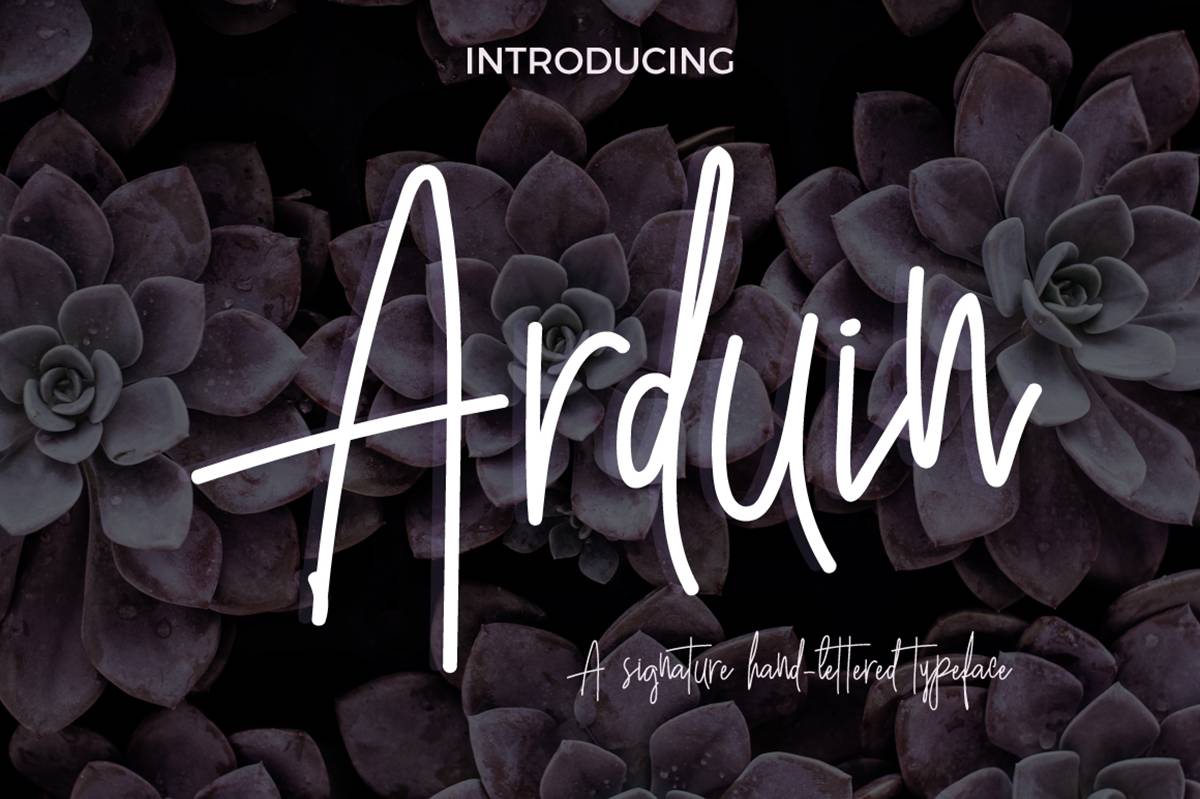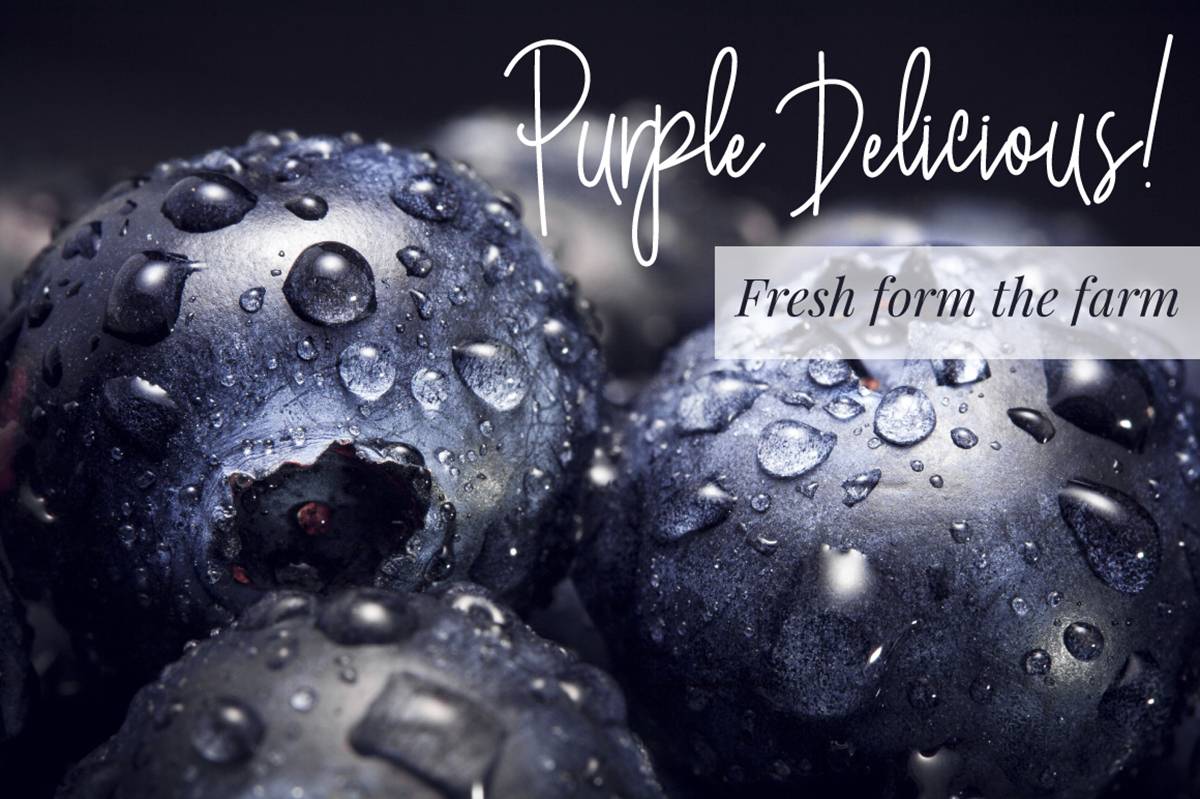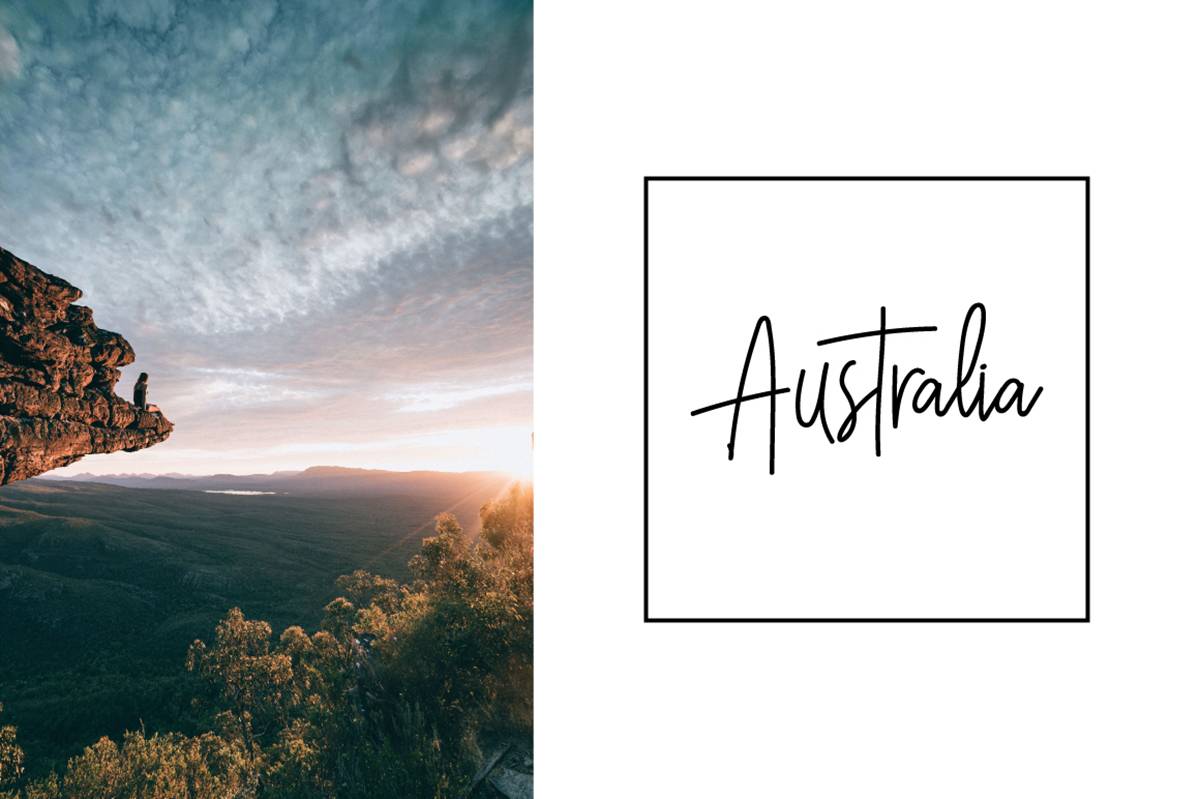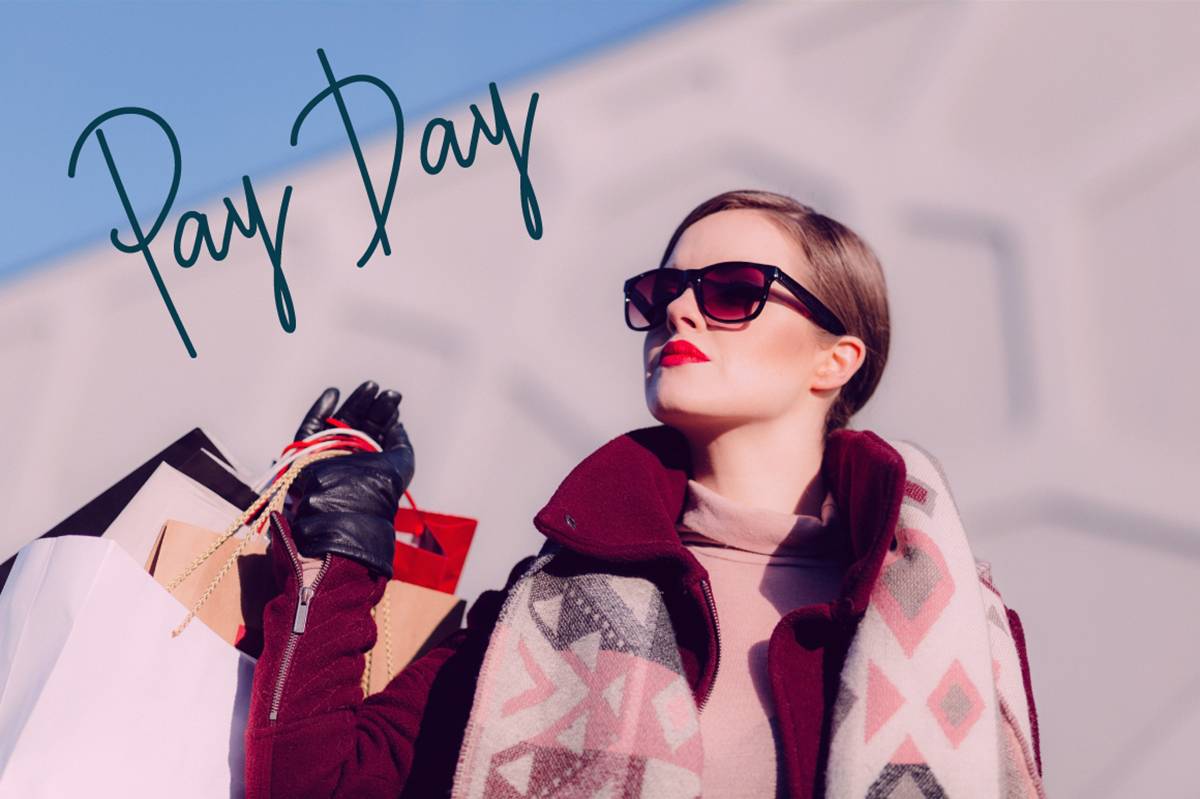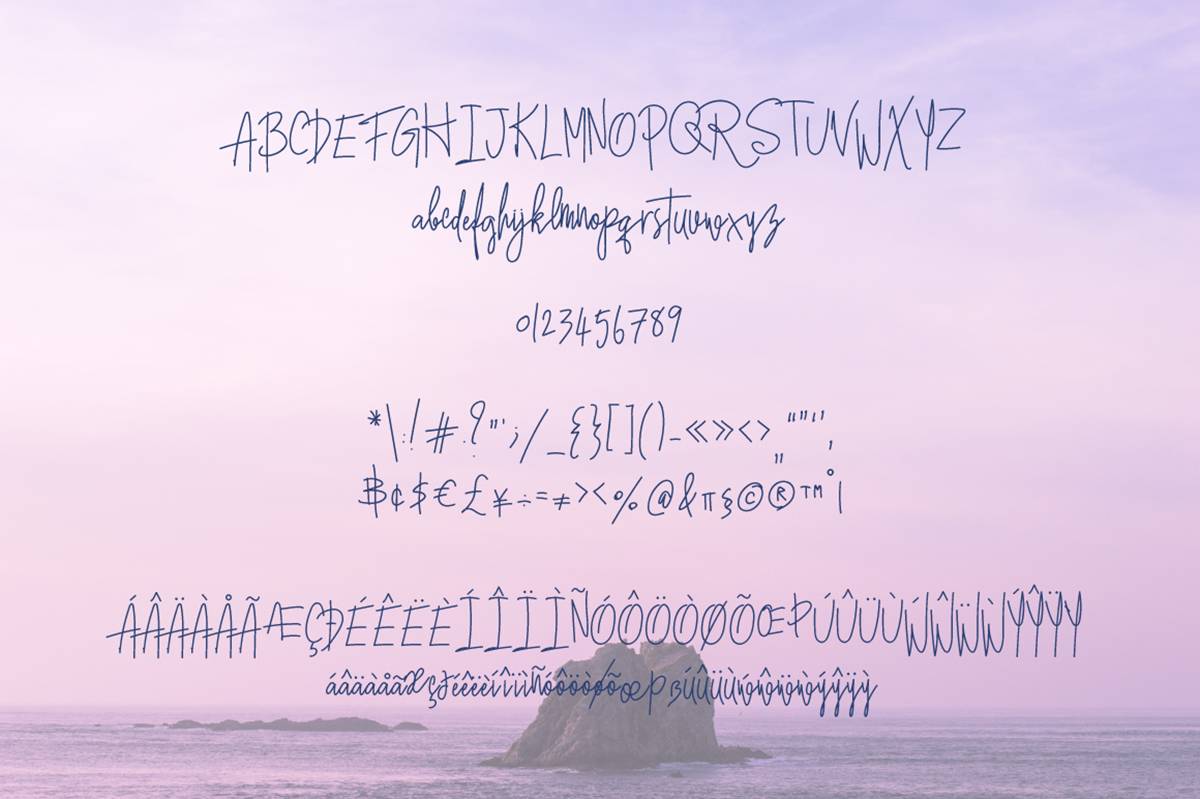
Arduin is a delicate, handwritten script font with a tall, narrow appearance and thin, flowing strokes that give it a casual yet elegant feel. Its mix of playful uppercase letters and more fluid lowercase forms makes it perfect for creative branding, personal projects, and inviting headlines where a personable and artistic touch is desired. This font works well in designs that aim to feel approachable, stylish, and uniquely expressive.
Arduin Font
About Arduin Font
| Font family | Arduin Font |
| Languages supported | Latin, Thai, Symbols |
| Release date | 2018-01-31 |
| Designer | KANDA EUATHAM |